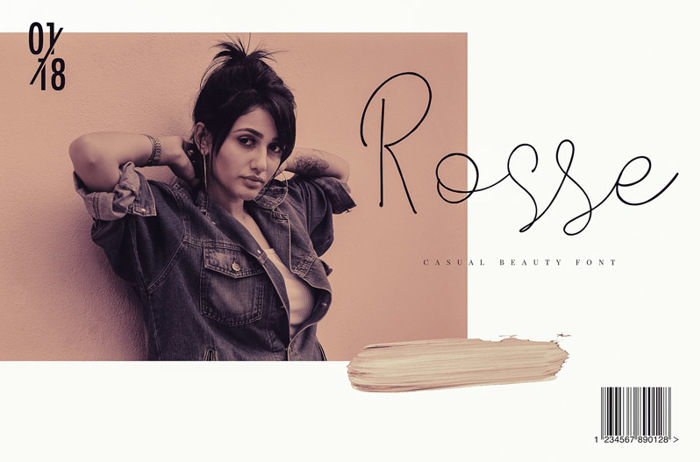
Rosse Font
Rosse. A casual and beautiful modern calligraphy font. It would be a perfect mate for branding, logo, wedding things, greeting cards, fashion, so versatile, right?